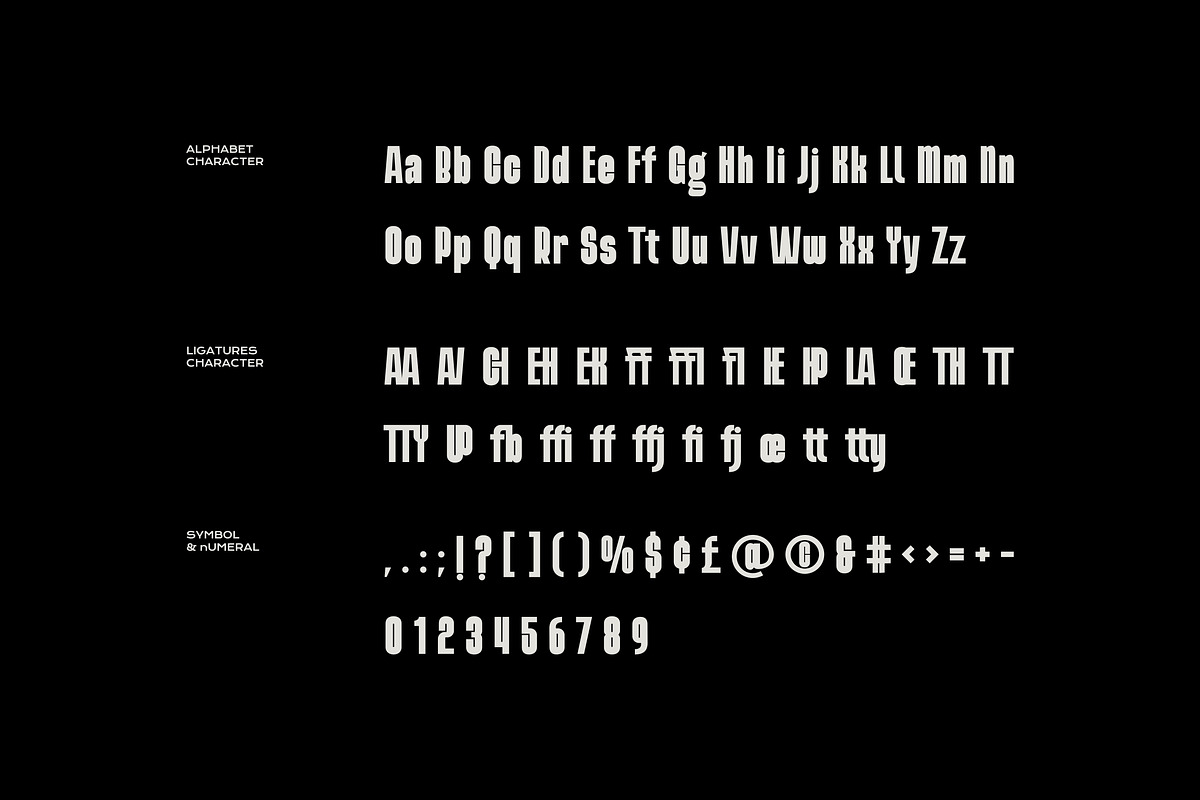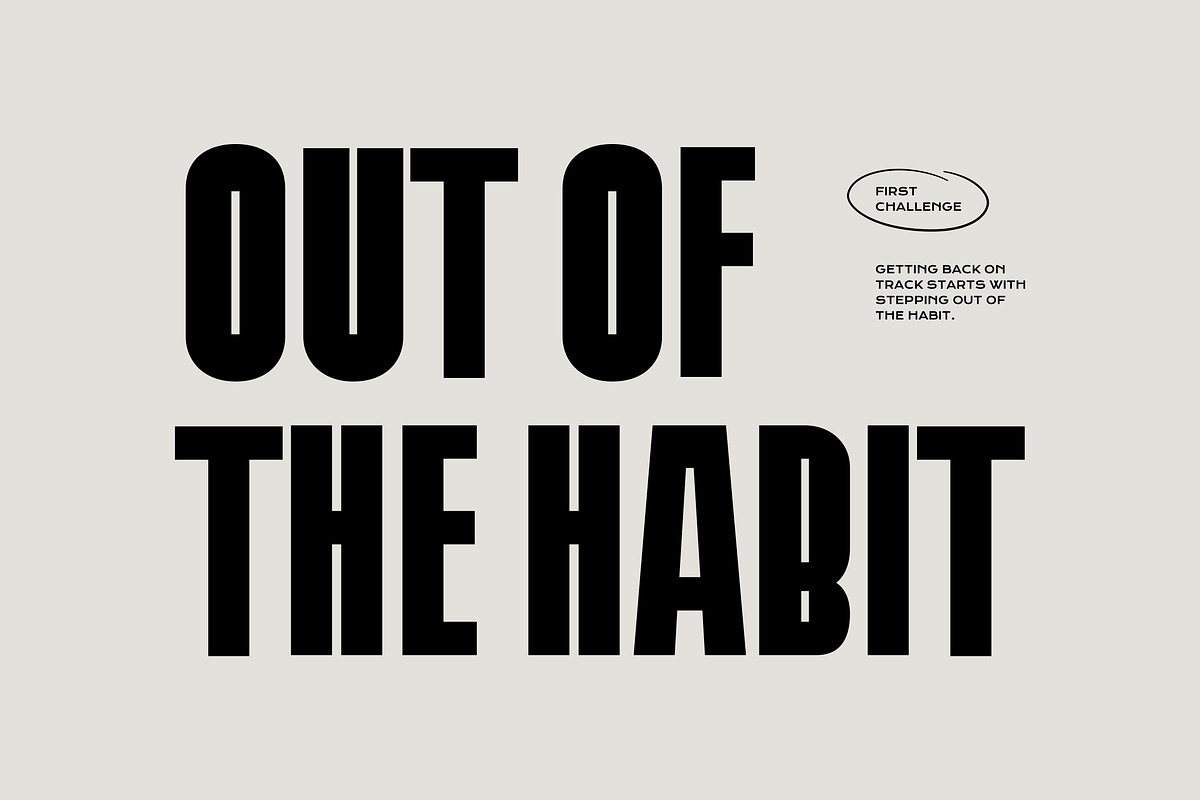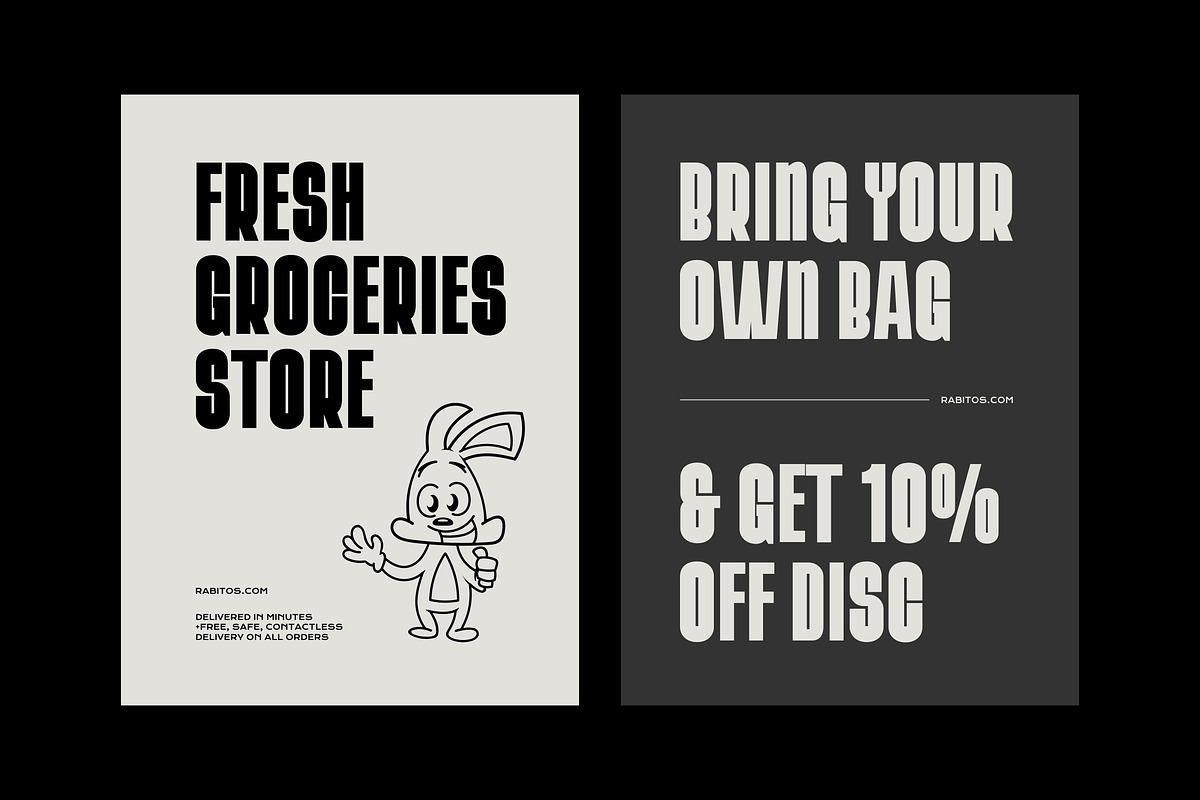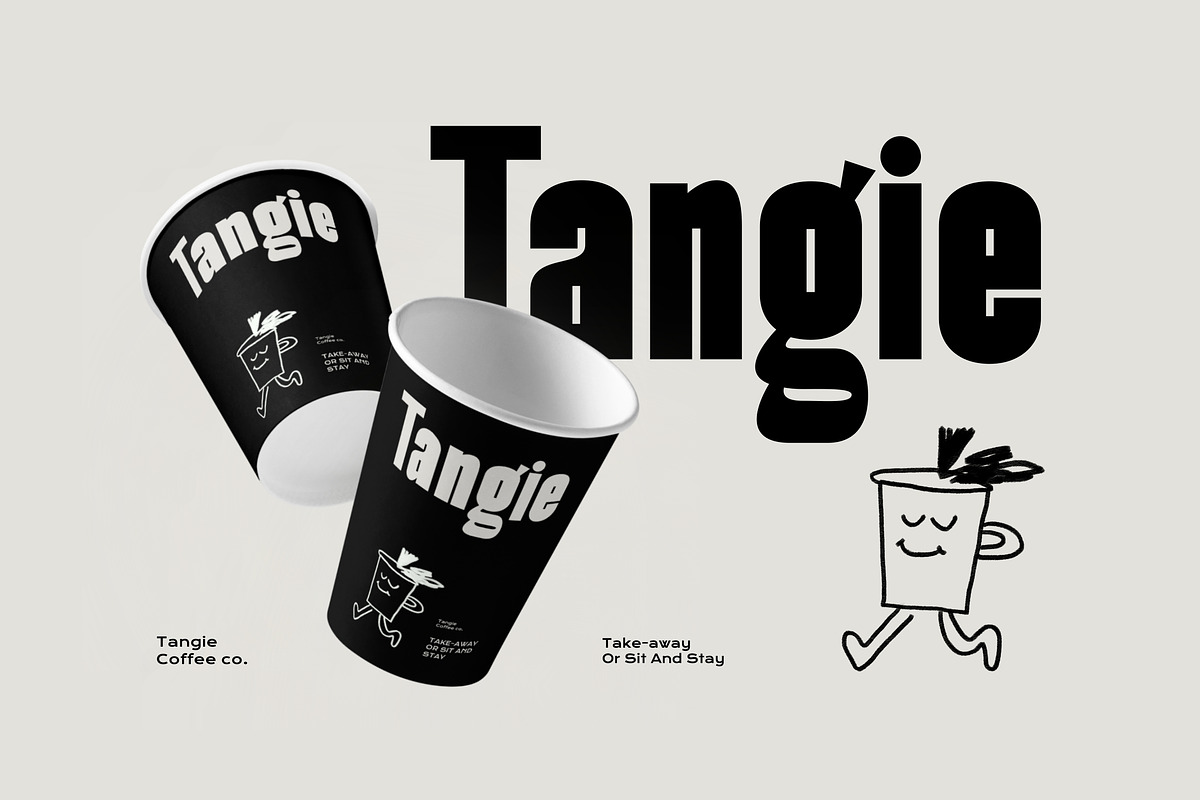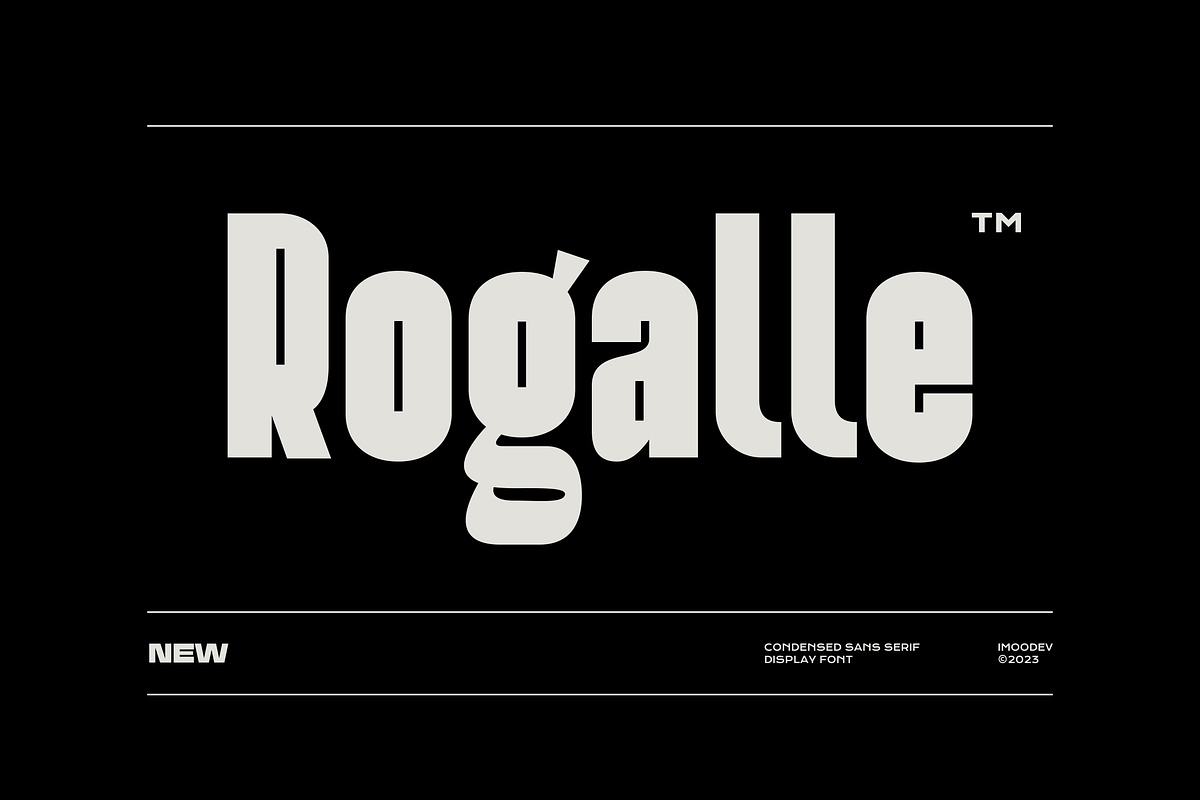
Rogalle - Condensed Sans Serif
Rogalle is a bold condensed sans serif font with a modern twist and a playful edge. It has a strong, tall, tightly-packed letterforms are designed to capture attention.
Rogalle excels at making headlines, branding stand out, and promotional materials. Perfect for everything from trendy packaging, advertising, poster, coffee shop, editorial design, creative packaging, and creative campaigns to urban posters and fresh digital branding.